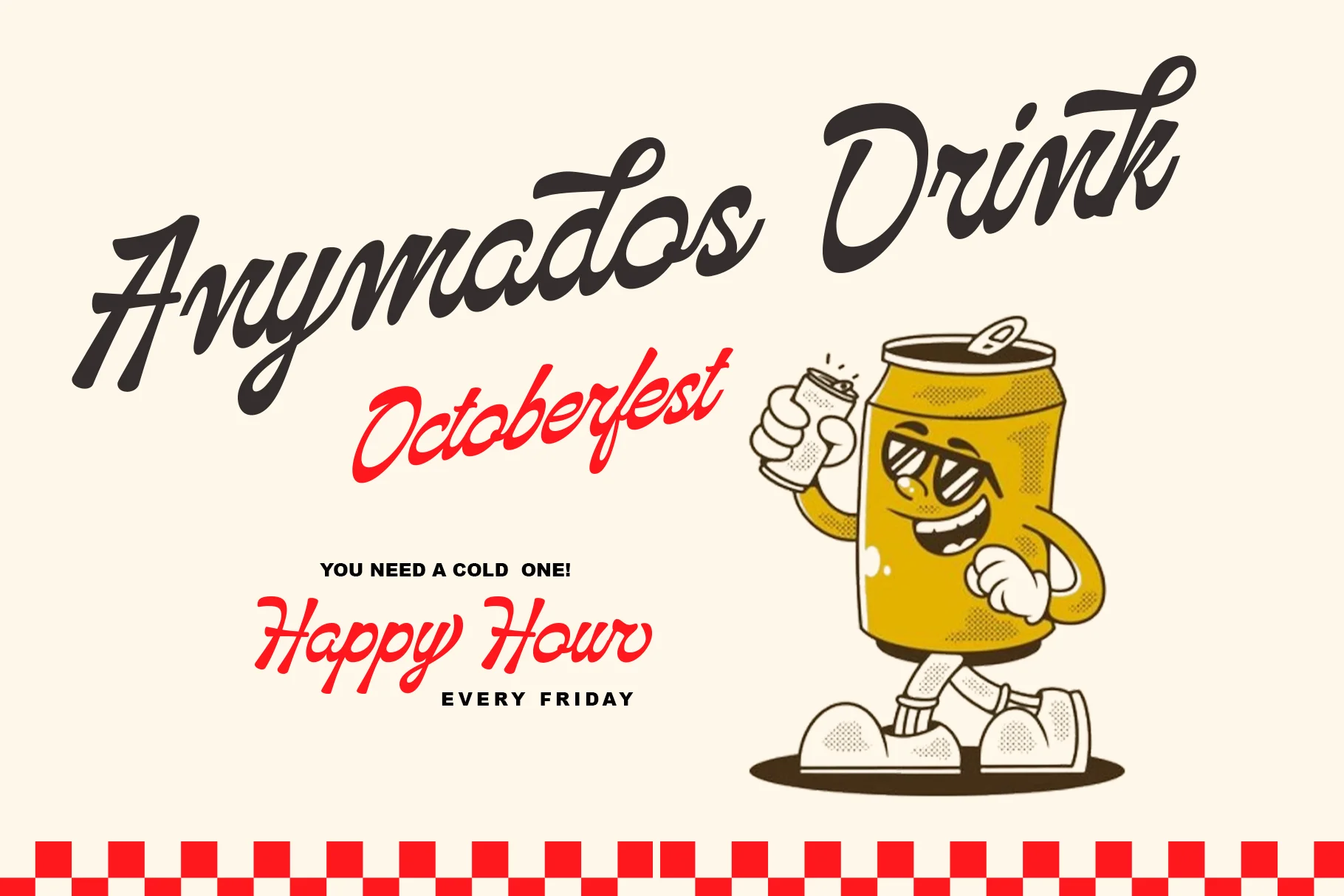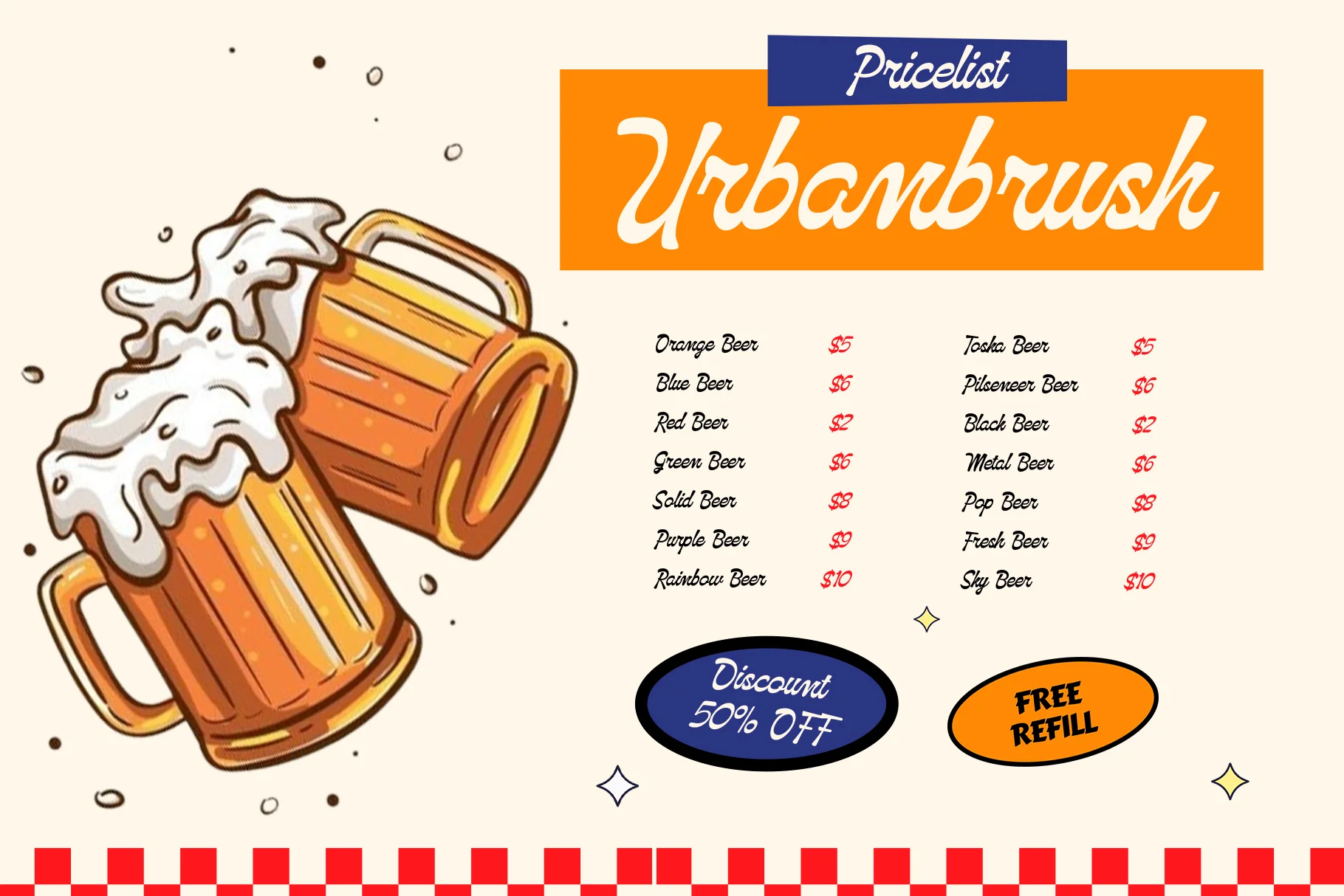
Hallway Authentic
The Hallway Authentic font is a captivating and character-rich Retro Script typeface. Its design instantly evokes a nostalgic atmosphere, reminiscent of the 1970s style or a relaxed, vintage beach vacation aesthetic. the font is equipped with swashes or alternate characters for various letters. This feature allows designers to add unique flourishes or ornamentation to the text, making the final design more dynamic and personal.
Features
- Uppercase and Lowercase – Complete range of letter cases for diverse uses.
- Numerals – Includes numbers for various creative needs.
- Functional – Designed for efficiency and aesthetic appeal.
- Multilingual Support – Includes characters for multiple languages.
- Stylistic Variations – Offers creative style options.